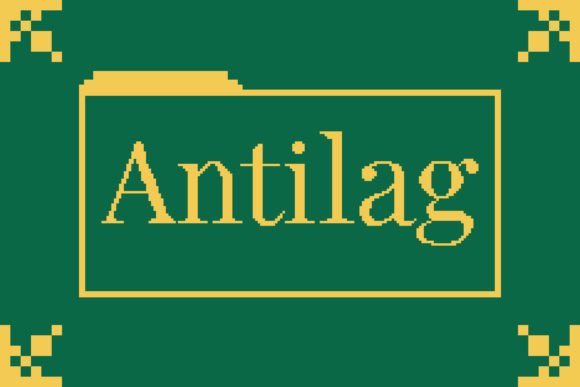
Introducing Antilag Font: A Unique Pixel Font Blending Vintage and Modern Aesthetics
In the world of typography, fonts play a crucial role in conveying messages, expressing emotions, and creating visual identities. With the resurgence of pixel art in 2024, a new font has emerged that perfectly captures the nostalgic charm of early digital design while incorporating modern elegance. Meet Antilag Font, a unique pixel font that seamlessly blends vintage and retro aesthetics with a modern twist.
What is Antilag Font?
Antilag Font is a pixel font that draws inspiration from the beloved Playfair Display font, reimagining its classic character forms in a pixelated style. This innovative font combines the elegance of serif typography with the nostalgic charm of pixel art, creating a truly unique visual identity.
Inspiration from Pixel Art and Playfair Display
The resurgence of pixel art in 2024 has led to a renewed interest in retro and vintage aesthetics. Antilag Font taps into this trend, incorporating the distinctive characteristics of pixel art into its design. At the same time, the font draws inspiration from the classic Playfair Display font, known for its elegant and refined serif typography.
By combining these two seemingly disparate influences, Antilag Font creates a distinctive visual identity that is both nostalgic and modern. The font’s pixelated style pays homage to the early days of digital design, while its serif typography adds a touch of sophistication and elegance.
Key Design Features of Antilag Font
Antilag Font boasts several key design features that set it apart from other fonts in its class. Some of the most notable features include:
- Pixelated style: Antilag Font features a distinctive pixelated style that gives it a retro and vintage feel.
- Smooth lines and curves: Despite its pixelated style, Antilag Font features smooth lines and curves that create a sense of fluidity and elegance.
- Serif typography: Antilag Font incorporates serif typography, adding a touch of sophistication and refinement to its design.
- Unique character forms: Antilag Font features unique character forms that are both nostalgic and modern, making it perfect for a wide range of design applications.
Uses and Applications of Antilag Font
Antilag Font is a versatile font that can be used in a wide range of design applications, including:
- Digital design: Antilag Font is perfect for digital design projects, such as website headers, social media graphics, and mobile app interfaces.
- Print design: Antilag Font can also be used in print design projects, such as brochures, posters, and business cards.
- Branding and identity: Antilag Font’s unique visual identity makes it perfect for branding and identity projects, such as logos and letterheads.
- Art and illustration: Antilag Font can also be used in art and illustration projects, such as pixel art and digital paintings.
Benefits of Using Antilag Font
Antilag Font offers several benefits to designers and artists, including:
- Unique visual identity: Antilag Font’s distinctive pixelated style and serif typography create a unique visual identity that sets it apart from other fonts.
- Nostalgic charm: Antilag Font’s retro and vintage aesthetic adds a touch of nostalgia to any design project.
- Versatility: Antilag Font can be used in a wide range of design applications, from digital design to print design.
- Elegance and sophistication: Antilag Font’s serif typography adds a touch of elegance and sophistication to any design project.
In conclusion, Antilag Font is a unique pixel font that seamlessly blends vintage and retro aesthetics with a modern twist. Inspired by the resurgence of pixel art in 2024, Antilag Font captures the nostalgic charm of early digital design while incorporating the elegance of serif typography. With its distinctive design features, versatility, and benefits, Antilag Font is perfect for designers and artists looking to add a touch of nostalgia and sophistication to their design projects.